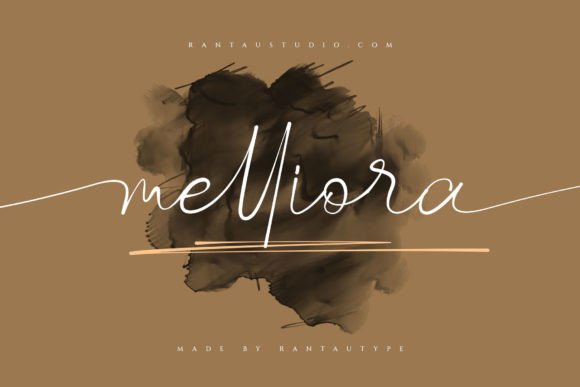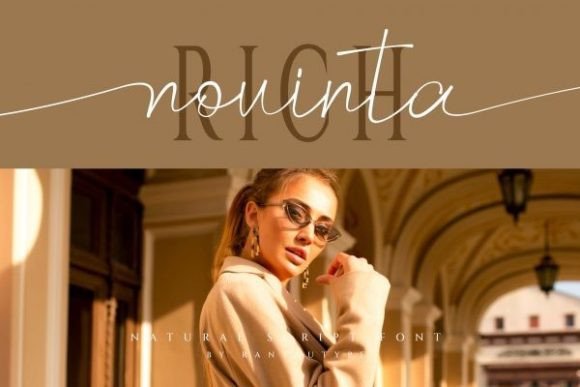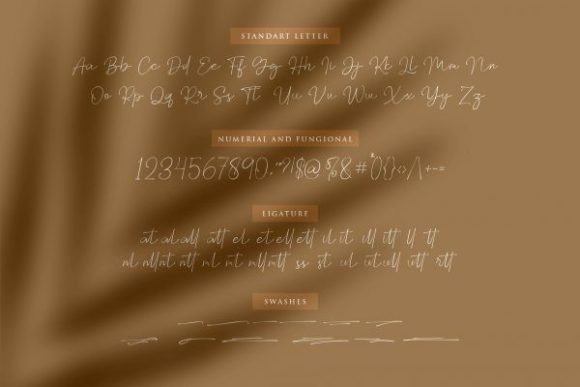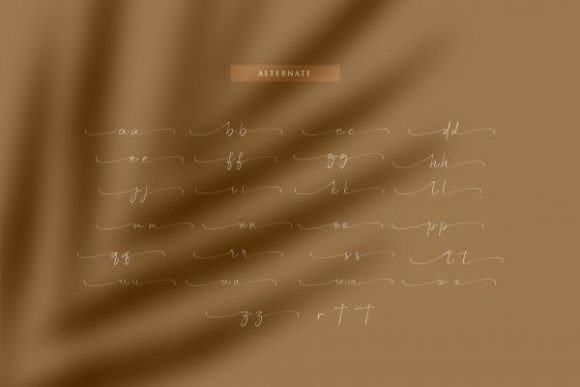
Add Stylish Authenticity with Melliora Font
The Melliora font is a stylish and authentic script designed with a professional and natural signature style. Its modern, readable, and catchy design makes it easy to use across a variety of creative projects. Melliora is perfect for adding a sophisticated and personal touch to your work.
Perfect for Watermarks, Logos, and More
The Melliora font excels in many design applications including photography watermarks, signature logo designs, quotes, album covers, business cards, and various branding projects. Its elegant strokes and flowing letterforms create a polished and memorable impression.
Despite its decorative signature style, the Melliora font maintains excellent readability at various sizes. Whether used for logos, quotes, or smaller text elements, it balances elegance with clarity, making it a versatile choice for many creative projects.
Make Your Designs Shine with Professional Signature Style
Typography is key to defining your design’s personality, and Melliora adds a stylish and authentic signature spirit. If you want to elevate your projects with a modern and elegant handwritten script, download the Melliora font today and create stunning, memorable visuals.